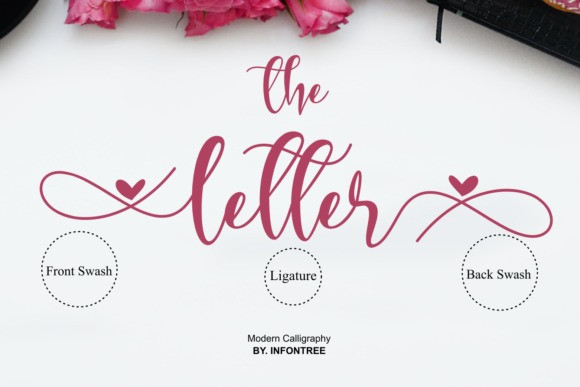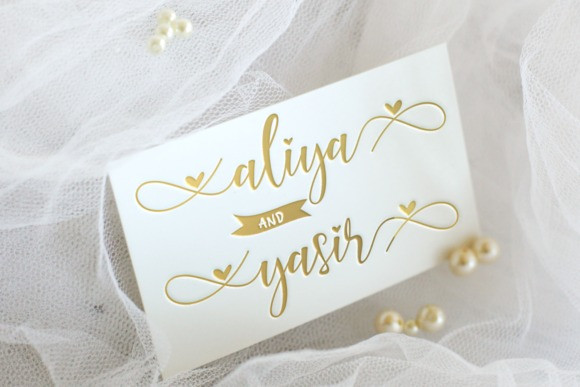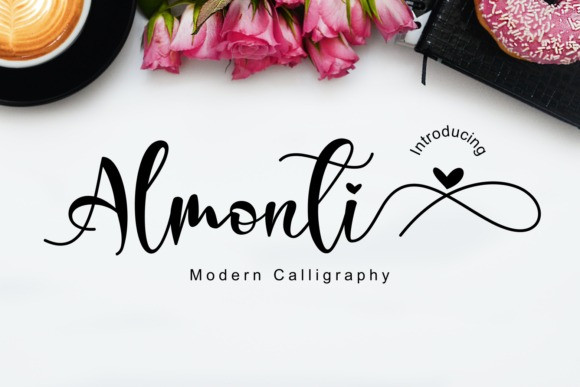
Almonti Font
Almonti Font by Infontree 16,205 downloads
Almonti Font
Almonti Calligraphy Font is a beautiful and romantic handwritten font. It looks stunning on wedding invitations, thank you cards, quotes, greeting cards, logos, business cards and every other design which needs a handwritten touch.